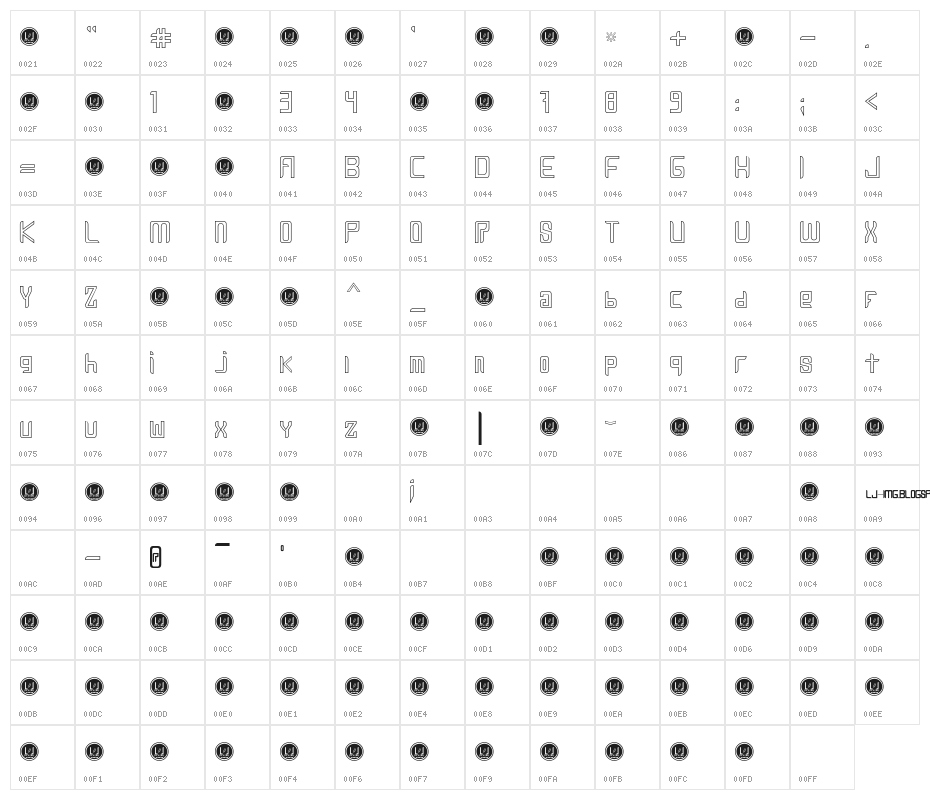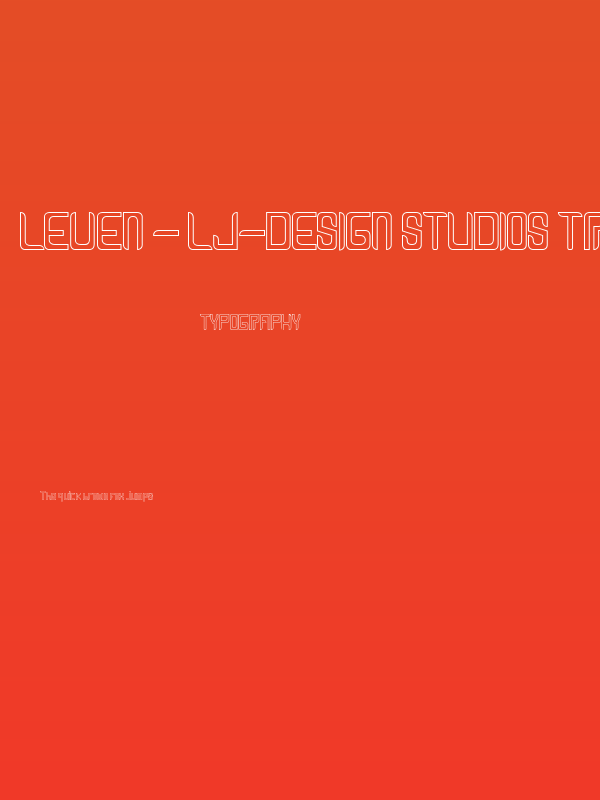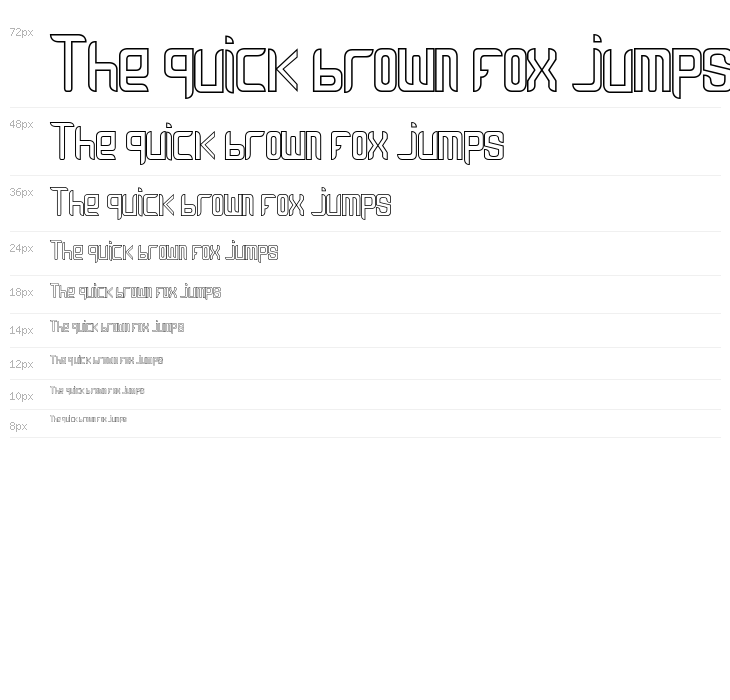
Leven - LJ-Design Studios Traze Font
Leven - LJ-Design Studios Traze Description
This font features a unique, geometric design with a hollow, outlined style that gives it a modern and futuristic appearance. The characters are constructed with clean, angular lines and consistent stroke widths, creating a cohesive and structured look. The uppercase and lowercase letters maintain a uniform height, enhancing the font's sleek and streamlined aesthetic. The numerals and special characters follow the same design principles, ensuring visual harmony across all elements. This font's distinct style makes it suitable for projects that require a contemporary and eye-catching typeface.
| Proposed Projects | Ideal for branding, logos, posters, and digital media projects that require a futuristic and stylish typeface. |